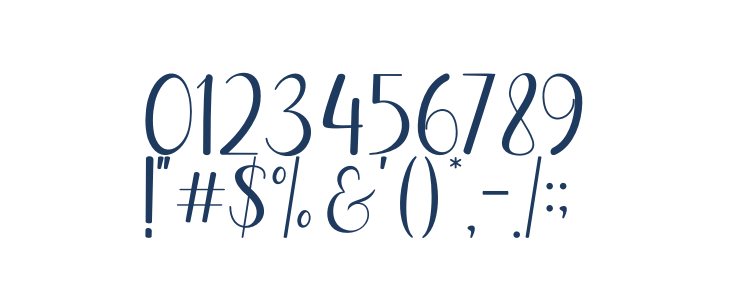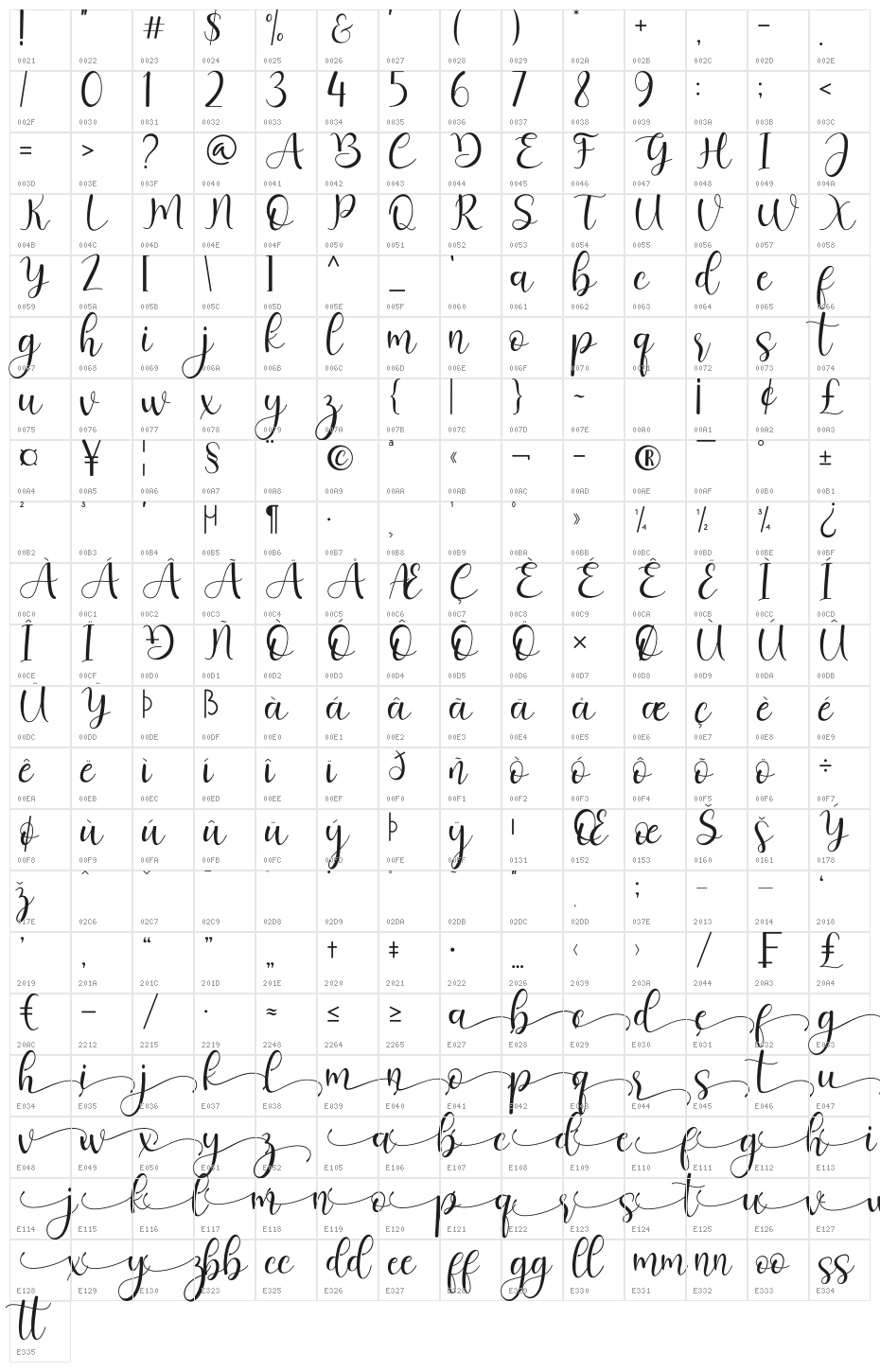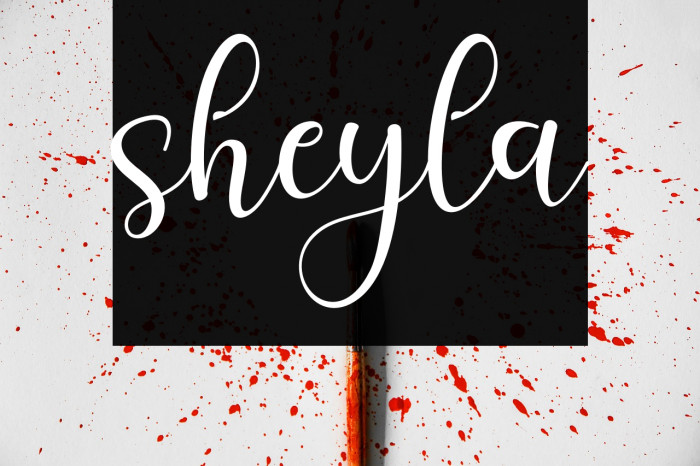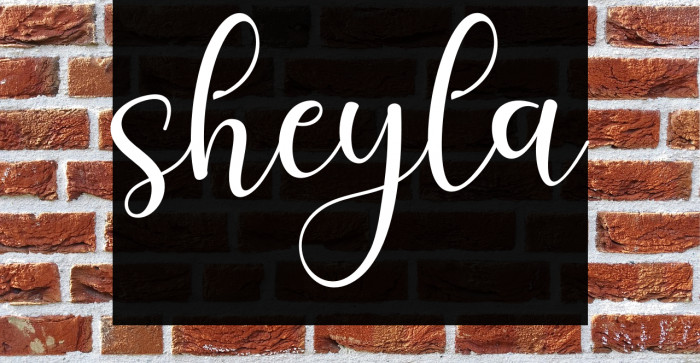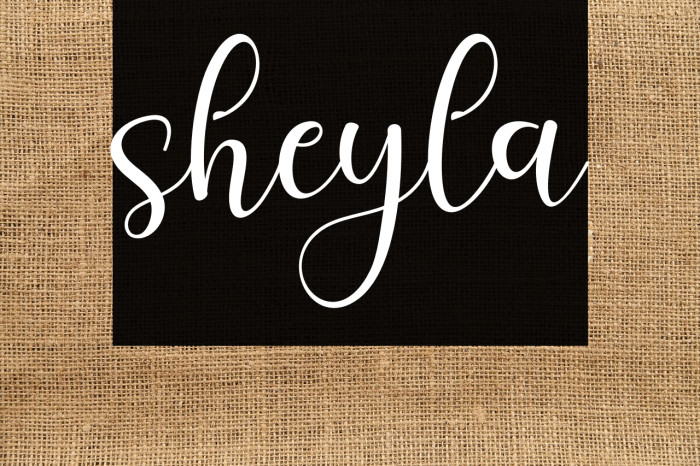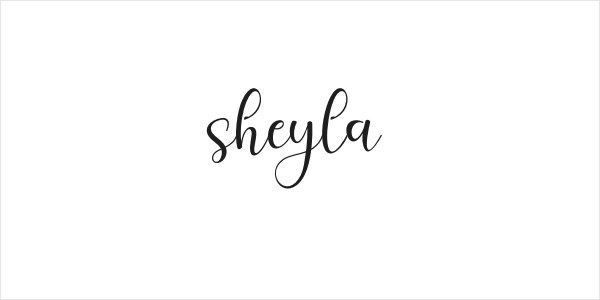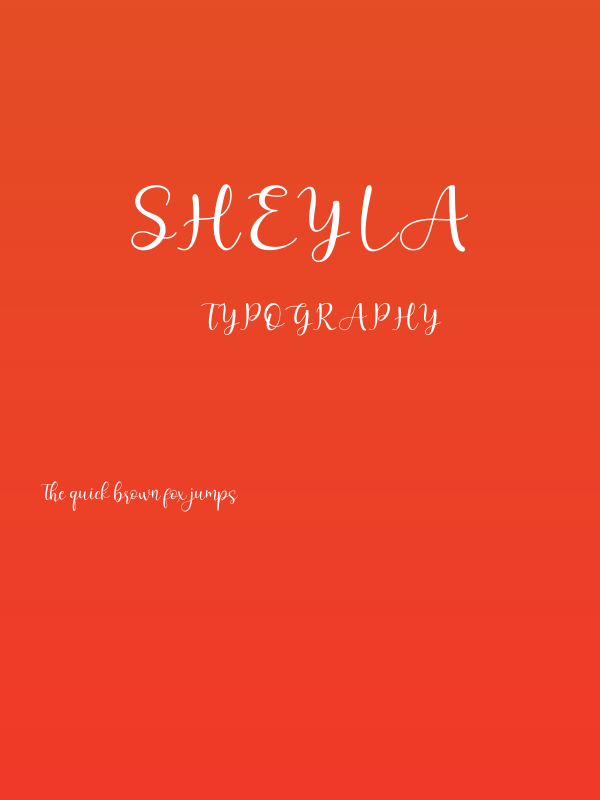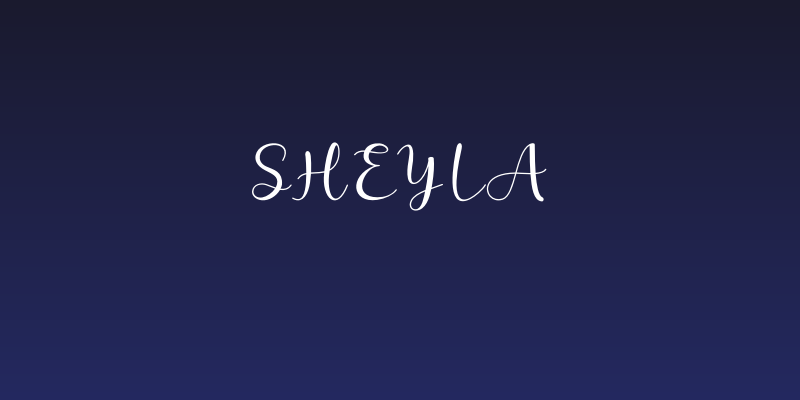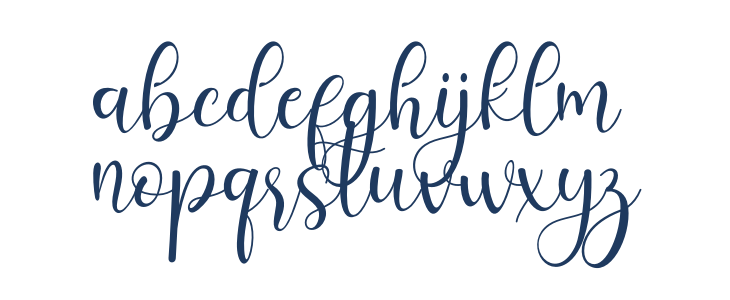
sheyla Font
sheyla Description
This font features an elegant, flowing script style with a modern touch. The uppercase letters are characterized by smooth, sweeping curves and a consistent stroke width, giving them a graceful appearance. The lowercase letters maintain the same fluidity, with some letters featuring distinctive loops and flourishes that add a decorative element. The numerals are bold and slightly condensed, providing a strong contrast to the delicate script. Special characters are designed with the same attention to detail, ensuring they blend seamlessly with the rest of the font. Overall, this font exudes sophistication and charm, making it suitable for a variety of creative projects.